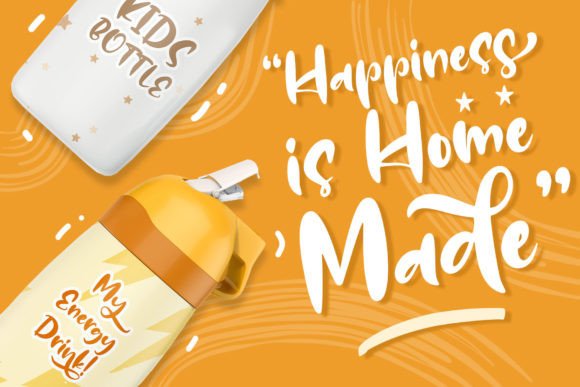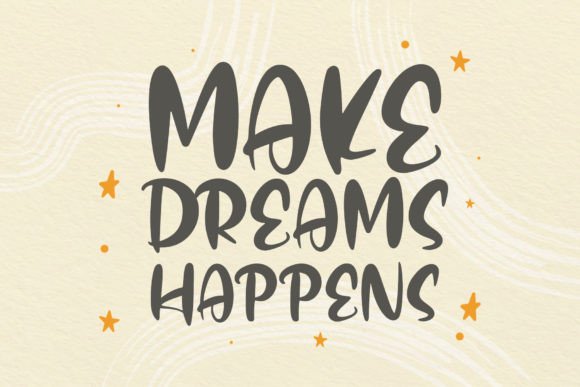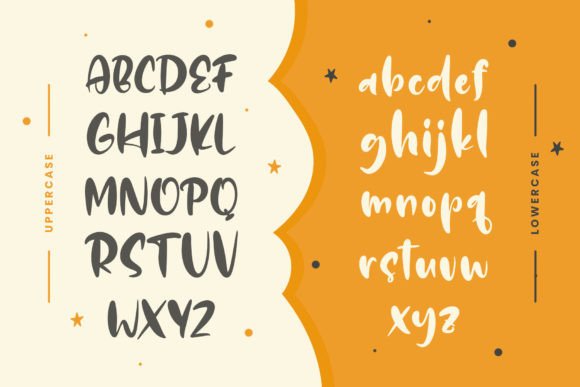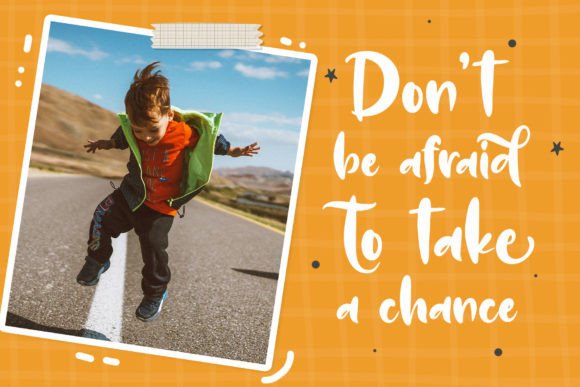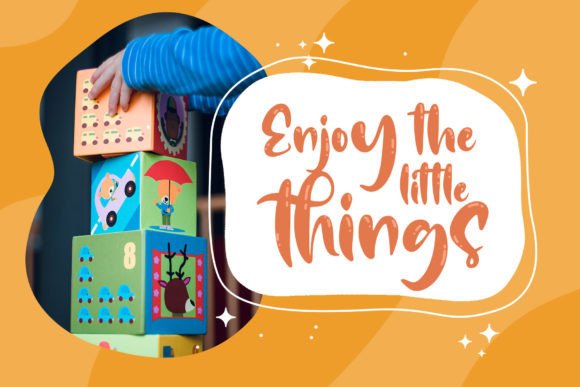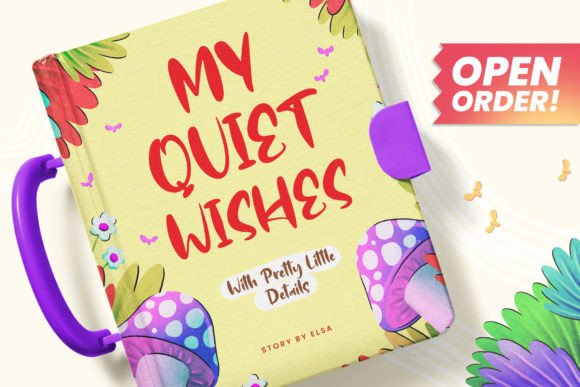
Introduction to Maghdia Font
Do you remember the moment when a simple handwritten note from a loved one brightened up your day? The imperfect strokes, the personal touch, and the joy it brought to your heart. That’s the magic we aimed to capture with our new exploration, the Maghdia Font. This beautiful, high-quality font is designed to bring a touch of whimsy and fun to your next creative project.
As a valuable resource for designers, the Maghdia Font offers a range of alternates and ligatures, making it easy to create unique and eye-catching typography. With its transparent background and PUA encoding, you can access all the amazing glyphs and ligatures with ease, perfect for your next design project that needs a joyful style.
Key Features of Maghdia Font
- High-quality, elegant design suitable for creative projects, including graphic design, digital art, and publishing.
- Features a transparent background, allowing for seamless integration into any design, from logos to packaging.
- Includes a range of glyphs and characters, making it a versatile design resource for various languages and alphabets.
- Designed with a unique aesthetic, the Maghdia Font is perfect for adding a touch of sophistication to any creative project.
Honest Review: Maghdia Font
One of the things that works well with the Maghdia Font is its high quality and unique design. The font is perfect for adding a touch of elegance to any project, and its transparent background makes it easy to overlay on images and other design elements. I was impressed with how well it worked in both digital and print designs.
The Maghdia Font is a great design resource for anyone looking for a stylish and sophisticated font. Here are some of its key features:
- Transparent background for easy overlaying
- Works well in both digital and print designs
While the Maghdia Font is an excellent addition to any designer’s toolkit, there are a few limitations to keep in mind:
- May not be suitable for very small text sizes
- Some users may find the font too ornate for certain designs
Overall, I’m impressed with the Maghdia Font and would definitely recommend it to designers looking for a high-quality, unique font for their creative projects.
Tips for Getting the Most Out of Maghdia Font
Use the Maghdia Font on a transparent background to create a modern and sleek design. Experiment with different font sizes and colors to add visual interest to your project.
Common Use Cases for Maghdia Font
The Maghdia Font is ideal for creative projects such as logo design, branding, and digital art. It can also be used for print materials such as business cards, flyers, and brochures.